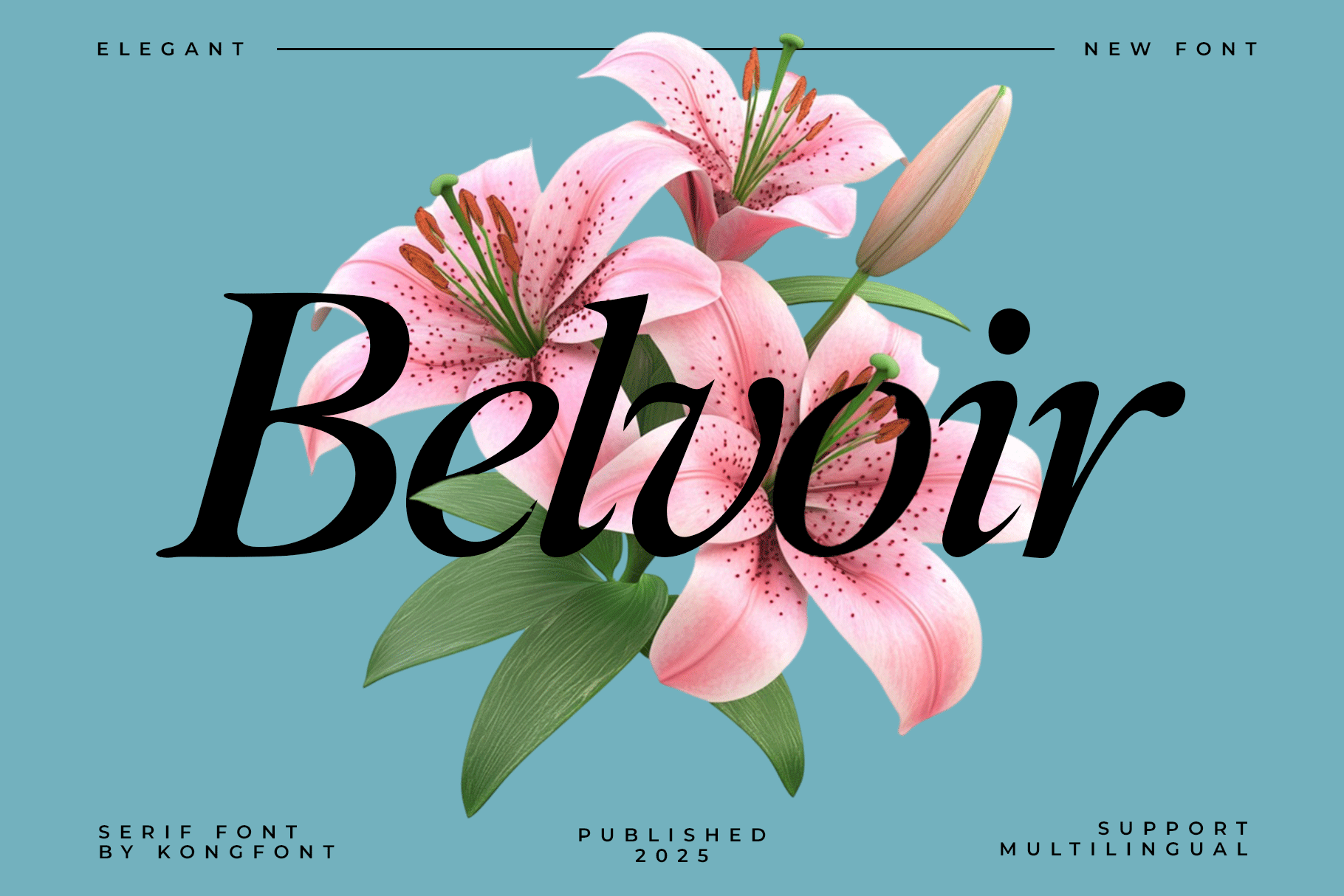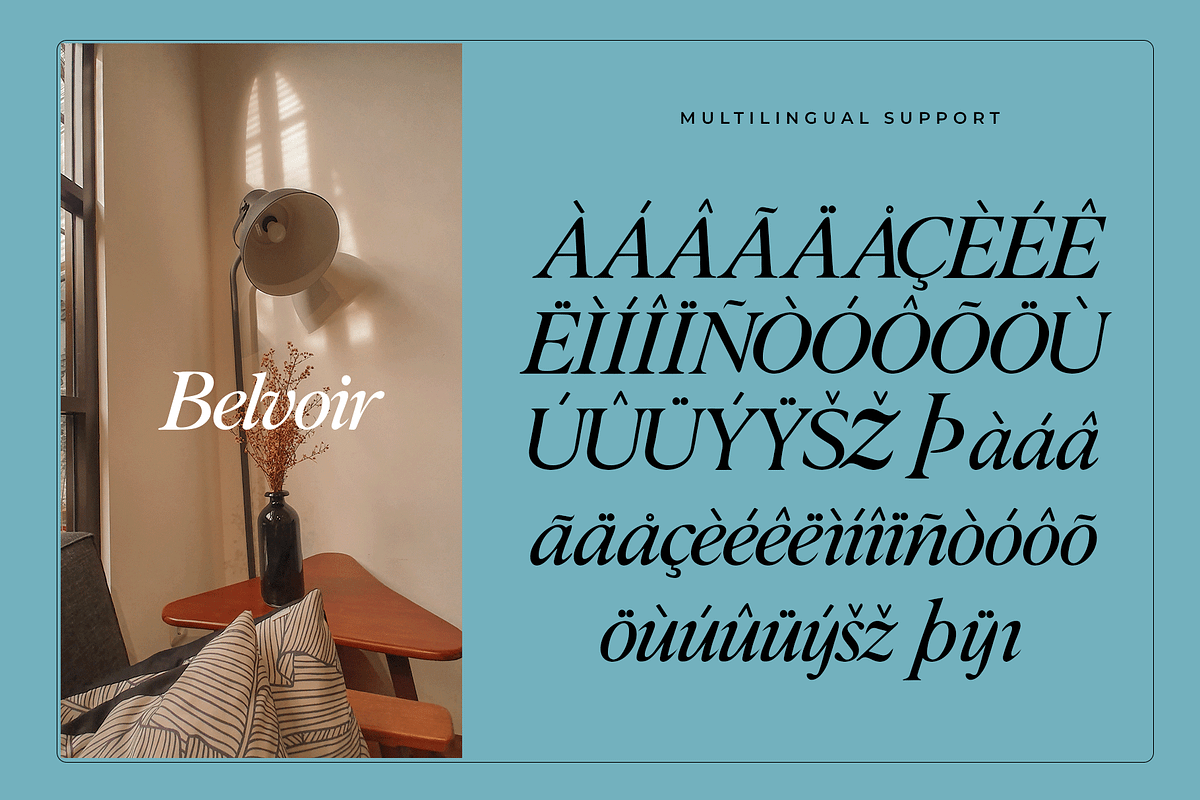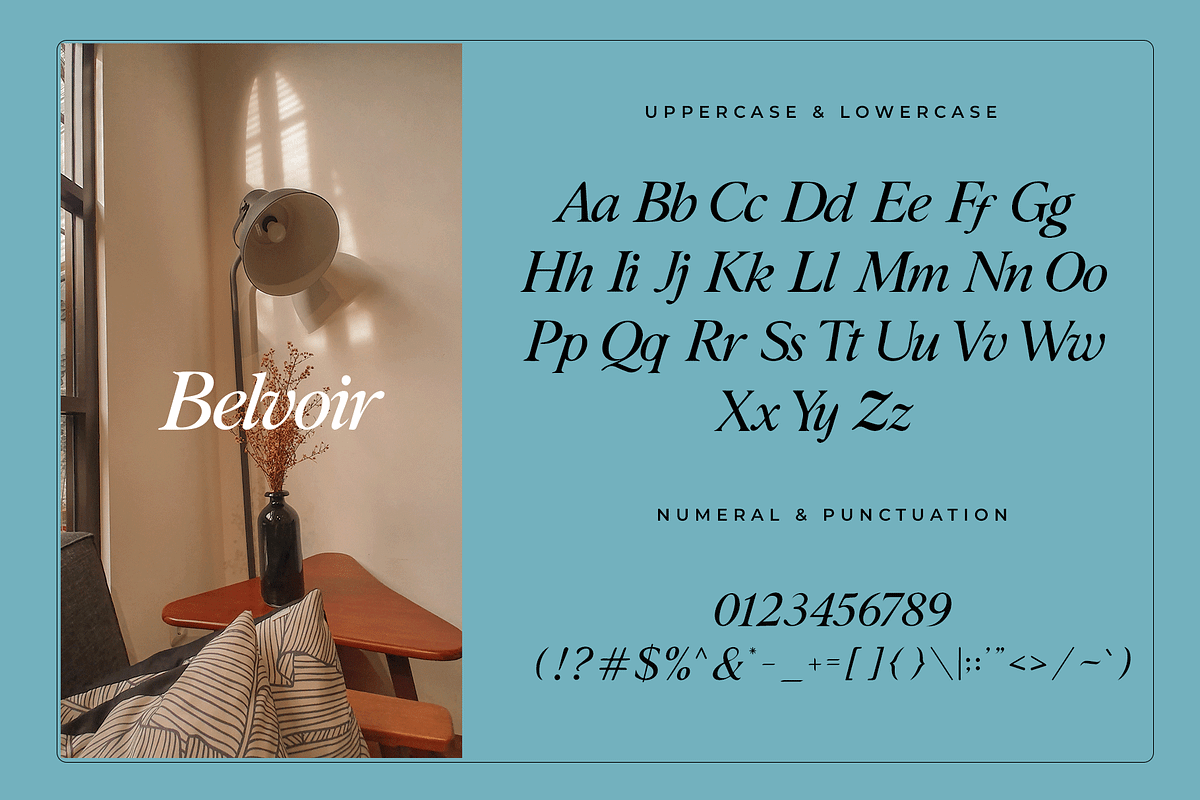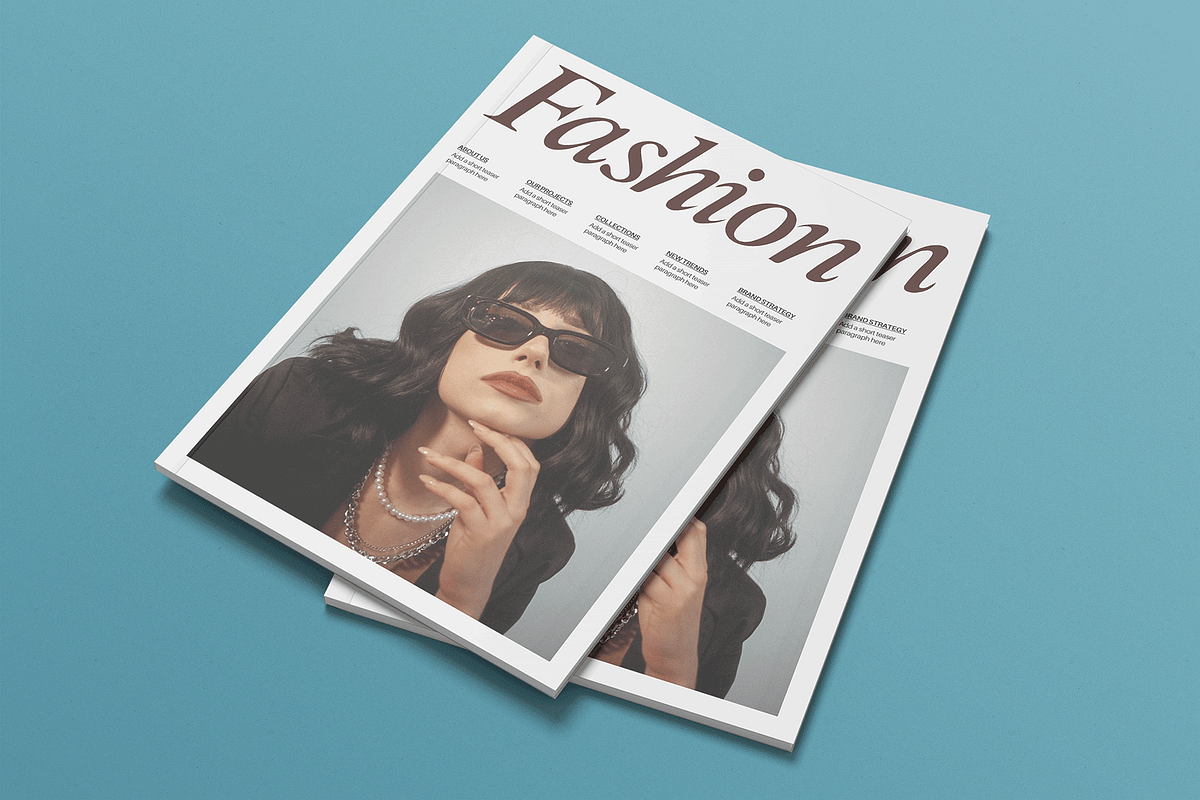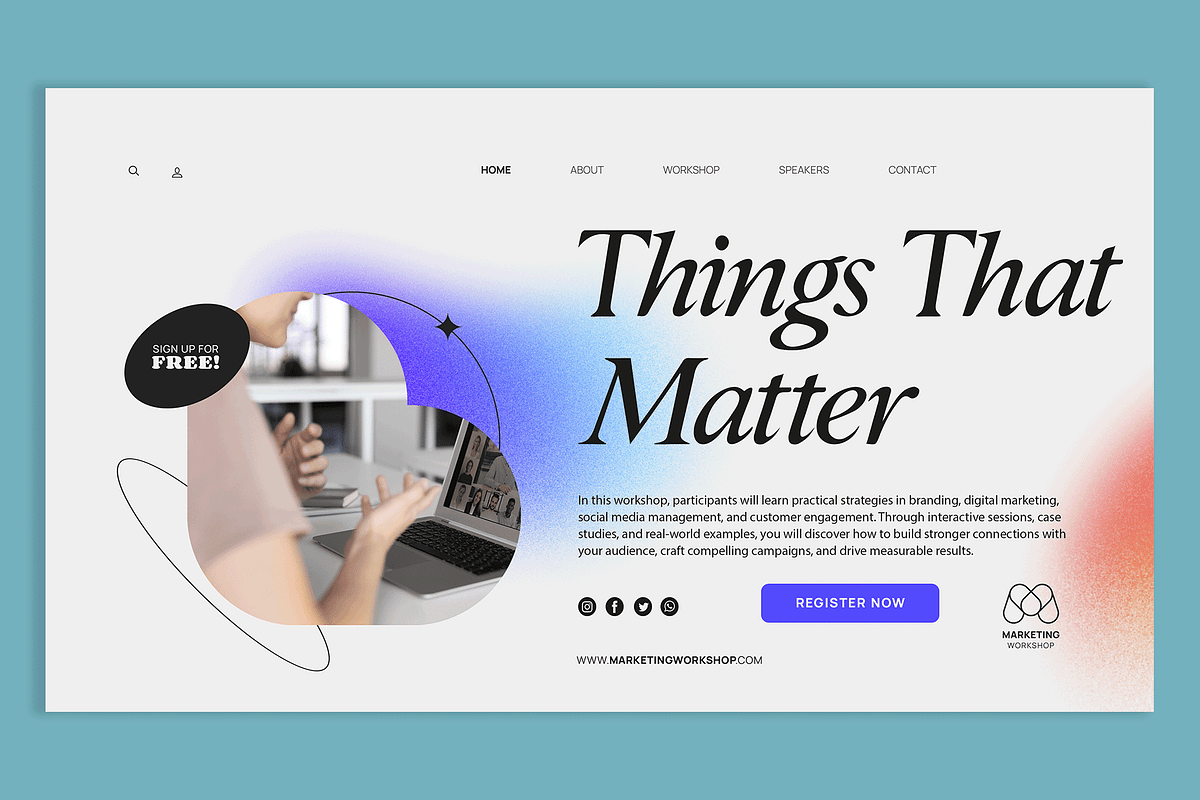
Belvoir – Elegant Serif Font
Belvoir is a refined serif font that blends classic elegance with modern versatility. Designed with balanced proportions and graceful serifs, this typeface brings a sophisticated touch to any project.
Perfect for editorial design, branding, logos, invitations, magazines, packaging, and websites, Belvoir delivers both readability and style. Whether you’re creating a luxurious brand identity or designing elegant print materials, this font provides a timeless foundation for your work.
The font includes uppercase, lowercase, numbers, punctuation, and multilingual support, ensuring flexibility for various creative applications.